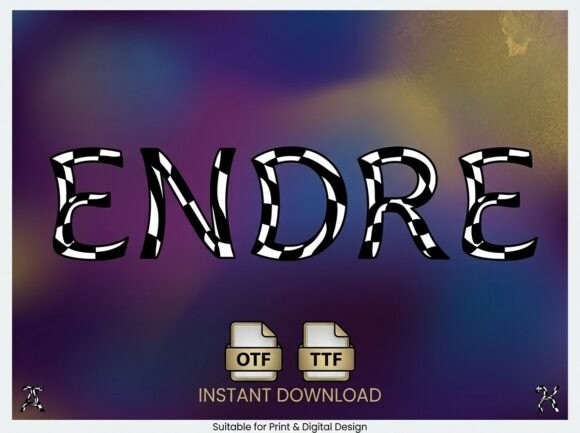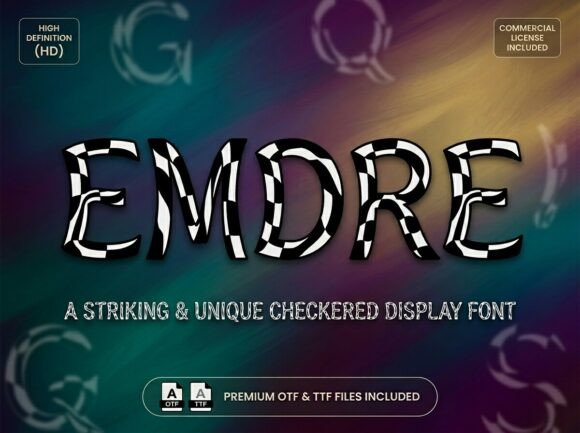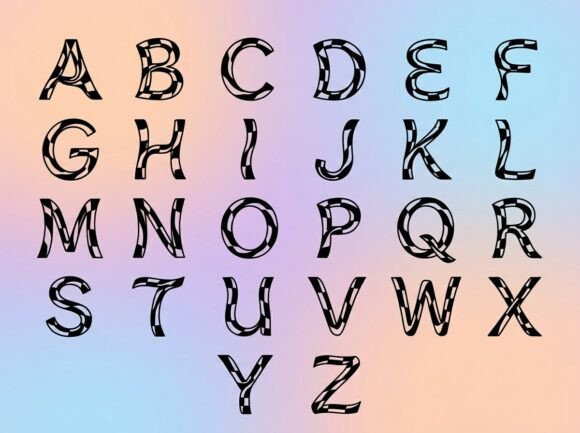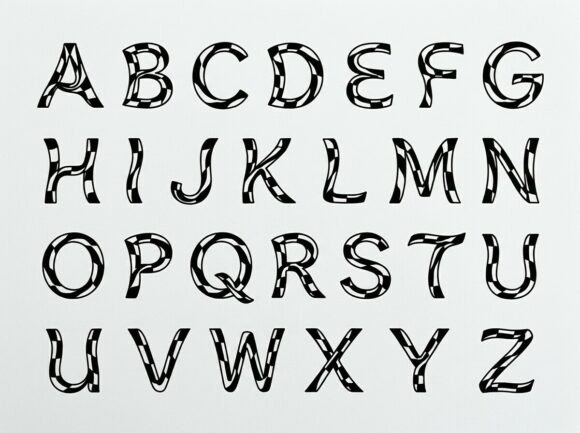
Introducing Endre Font: A Stunning Decorative Display Font
Are you tired of using the same old fonts for your creative projects? Do you want to make a statement and grab the attention of your audience? Look no further than Endre Font, a unique and artistic display font that’s designed to be the center of attention. In this article, we’ll take a closer look at Endre Font and what makes it a must-have for designers, crafters, and creatives.
A Font that Breaks Away from the Ordinary
Endre Font is a decorative display font that features unique artistic elements and a strong visual personality. It’s perfect for creators who want to add a touch of elegance and sophistication to their work. With its bold and eye-catching design, Endre Font is ideal for making a statement and standing out from the crowd.
Versatile and Professional
One of the best things about Endre Font is its versatility. It’s perfect for bold headlines, artistic logos, and creative packaging, while maintaining a professional and polished finish. Whether you’re working on a branding project, a marketing campaign, or a personal creative project, Endre Font is sure to impress.
⚠️ IMPORTANT NOTE BEFORE PURCHASE: Endre Font is an ALL-CAPS (Uppercase Only) display typeface. It does not include lowercase letters. It is specifically designed for high-impact headlines, logos, and decorative initials where every letter is a work of art.
This means that Endre Font is perfect for projects where you want to make a bold statement, but it’s not suitable for body text or other applications where lowercase letters are required.
Endre Font is a must-have for designers and crafters who want to add a touch of elegance and sophistication to their work. Whether you’re working on a branding project, a marketing campaign, or a personal creative project, Endre Font is sure to impress.
With its unique artistic elements and strong visual personality, Endre Font is perfect for:
- Bold headlines and titles
- Artistic logos and branding
- Creative packaging and labeling
- Decorative initials and lettering
Tips for Using Endre Font
Here are a few tips for using Endre Font:
- Use it sparingly: Endre Font is a bold and eye-catching font, so use it sparingly to make a maximum impact.
- Pair it with a neutral font: Pair Endre Font with a neutral font, such as Arial or Helvetica, to create a striking contrast.
- Experiment with colors: Endre Font looks great in a variety of colors, so don’t be afraid to experiment and find the perfect color scheme for your project.
In conclusion, Endre Font is a stunning decorative display font that’s perfect for designers, crafters, and creatives who want to make a statement. With its unique artistic elements and strong visual personality, Endre Font is sure to impress. Whether you’re working on a branding project, a marketing campaign, or a personal creative project, Endre Font is a must-have font that’s sure to take your work to the next level.